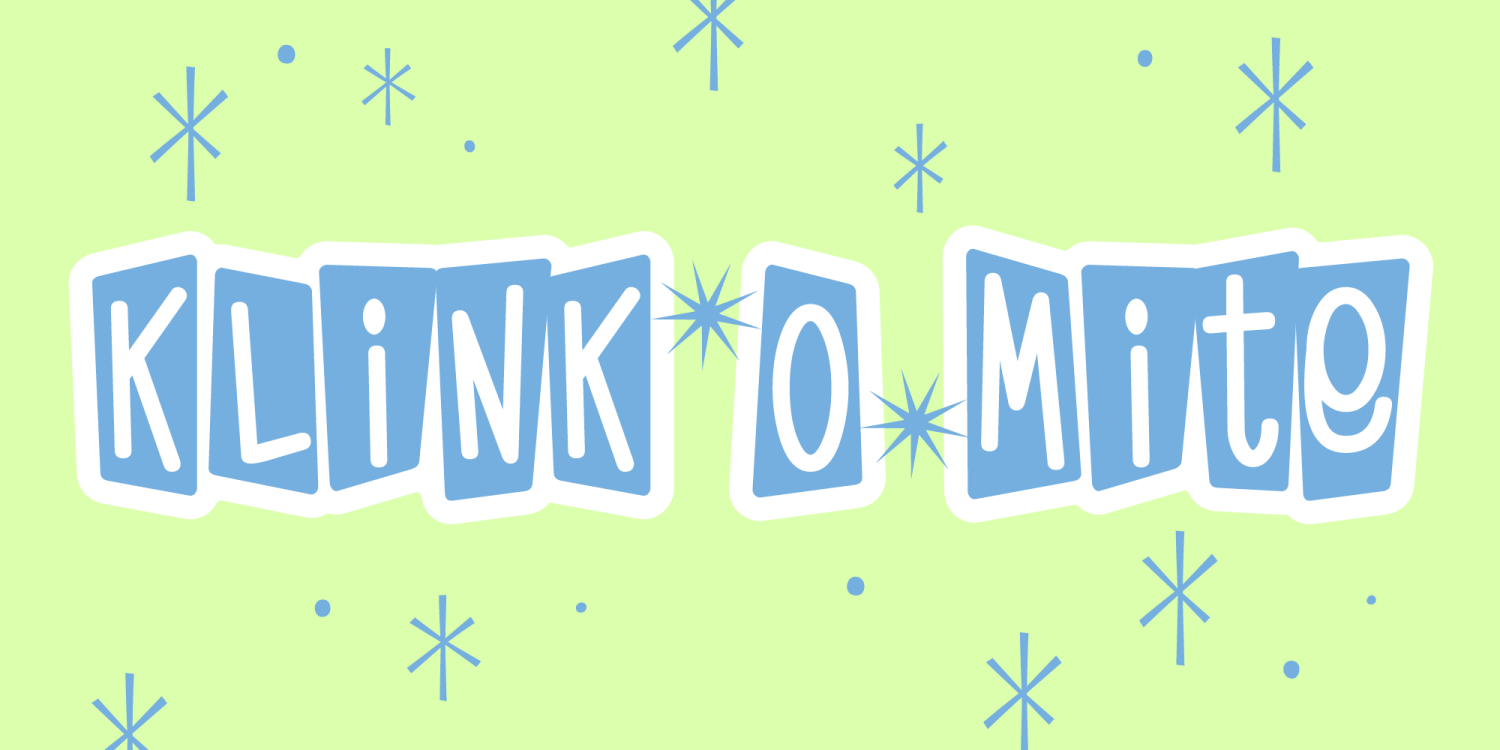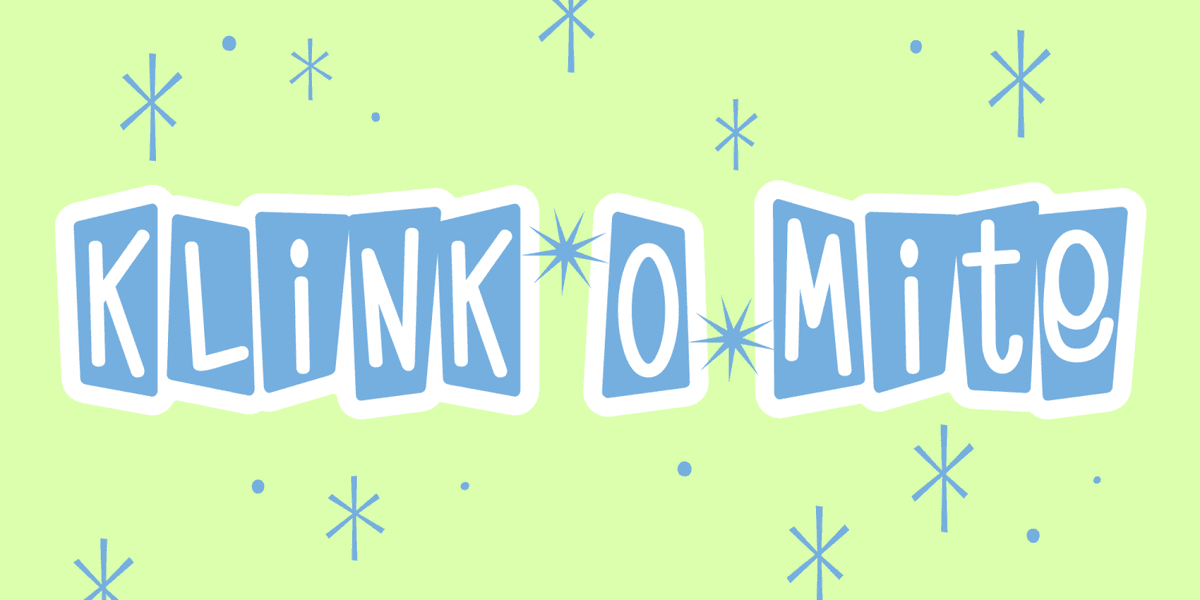
How can I help myself from making a 1950's font when my computer room is decked out in that decade of wholesomeness? This is definitely a headliner font. Don't you dare try to hand in a research paper in this typeface. Your prof will come after me and I don't have time to mess around with the guy. I have more fonts to make!!